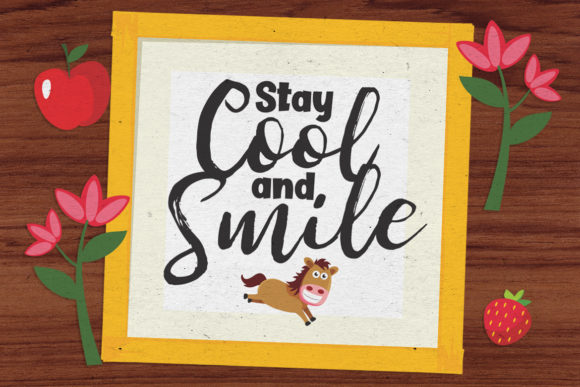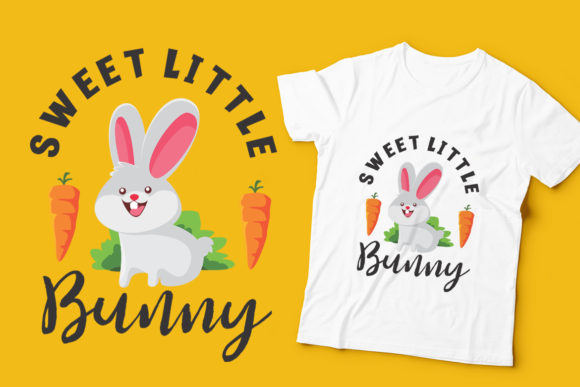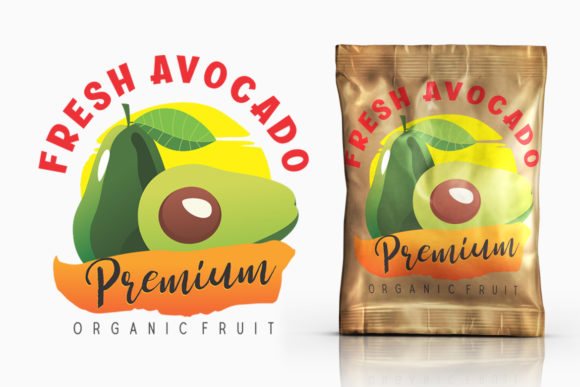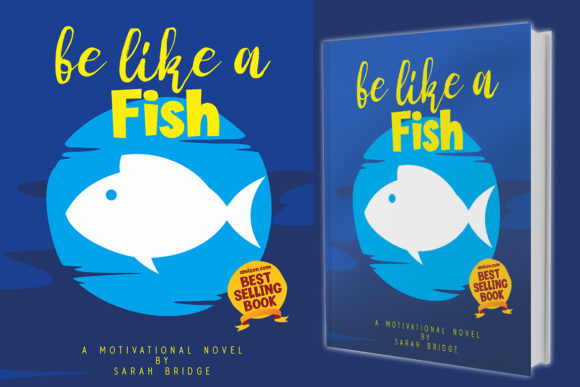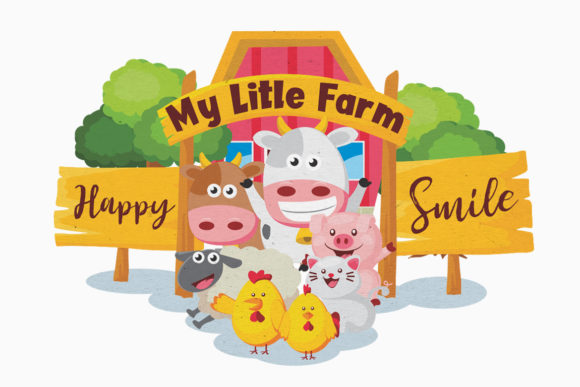
Introduction to Perfect Sweet Trio Font
Fall in love with the delicious and charming Perfect Sweet font trio.
It comes with more than 150 bonus colourful Illustrations that will easily turn any creative project into a true stand out .
Key Features of Perfect Sweet Trio Font
Why Choose Perfect Sweet Trio Font?
Perfect Sweet Trio Font offers exceptional quality and versatility, making it a valuable addition to your design toolkit. Whether you’re creating for personal projects or commercial use, Perfect Sweet Trio Font delivers professional results.